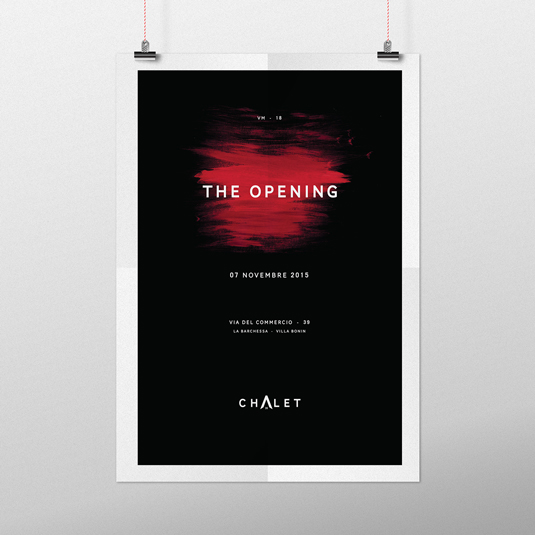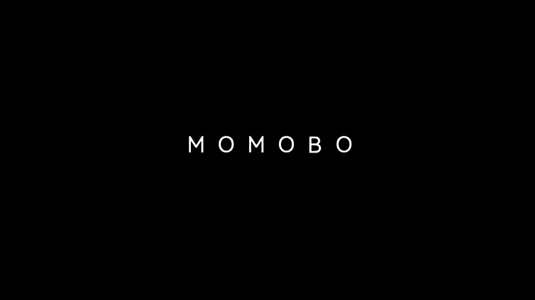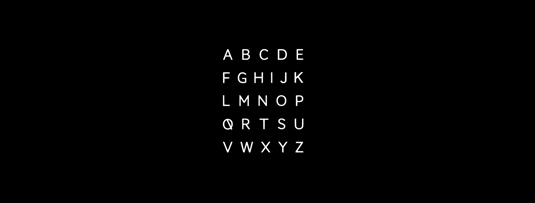
Font of the day: Momobo
Every day we showcase the best fonts on the web. Today it's Momobo by Roberto Rigon, which is free to download.
Momobo by Roberto Rignon
Art director Roberto Rignon is the man behind today's font of choice, Momobo. A simple and elegant sans serif, Momobo will bring an air of sophistication to any design.